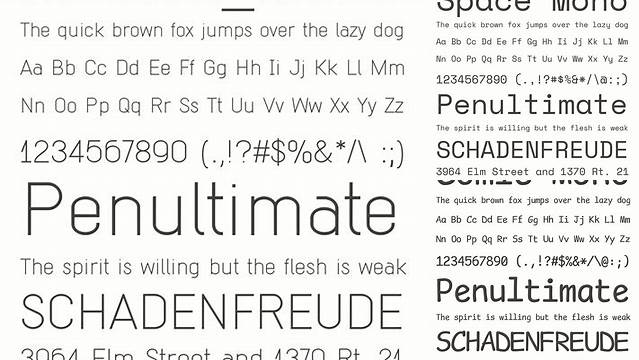
Hey guys! Ever been on the hunt for the perfect mono fonts? You know, those cool, fixed-width fonts that look amazing in code editors, terminals, and even design projects? Well, you've come to the right place! This guide will walk you through everything you need to know about mono fonts, where to find them, and how to download a mono fonts zip file so you can start using them right away. Let's dive in!
What are Mono Fonts?
Before we get into the nitty-gritty of downloading, let's quickly chat about what mono fonts actually are. Unlike proportional fonts, where each character has a different width (think 'i' versus 'w'), mono fonts (also called monospace fonts) give every character the same width. This creates a uniform, typewriter-like appearance that's super easy to read, especially in coding environments where alignment is key. Mono fonts are also fantastic for creating ASCII art, retro designs, and adding a touch of technical flair to your projects. When you're working with code, using a mono font can seriously improve readability and reduce errors. Imagine trying to debug a program with a font where the spaces and letters blend together β a total nightmare, right? That's why developers swear by mono fonts!
Why Choose Mono Fonts?
Choosing the right font can make a world of difference, especially if you spend hours staring at text. Mono fonts offer several key advantages. First off, they boost readability. The consistent character width makes it easier for your eyes to track text, which means less strain and fewer mistakes. This is crucial when you're coding, writing, or just browsing the web. Secondly, mono fonts have a unique aesthetic. They bring a touch of retro coolness and technical sophistication to your projects. Whether you're designing a website, creating a presentation, or writing a document, a well-chosen mono font can make your content stand out. And let's not forget the practical side. In coding, mono fonts ensure proper alignment of code blocks, making it easier to spot errors and understand the structure. This alone makes them a must-have for any developer's toolkit. So, if you're looking for a font that's both functional and stylish, mono fonts are the way to go. Theyβre not just fonts; they're a tool to enhance your workflow and elevate your design game. Seriously, give them a try β you might just fall in love!
Common Uses of Mono Fonts
So, where can you actually use mono fonts? The possibilities are pretty much endless! Obviously, they're a staple in coding environments. Think text editors, IDEs, and terminals β anywhere you need clear, consistent character spacing for code. But mono fonts aren't just for developers. Designers love them for creating a retro or technical vibe in their projects. They're perfect for logos, posters, and websites that need a unique touch. Writers also appreciate mono fonts for drafting documents, especially when dealing with technical content or code snippets. The uniform character width makes it easy to see formatting issues and ensures everything lines up perfectly. Gamers might recognize mono fonts from classic arcade games and retro interfaces, adding a nostalgic feel to their setup. Even in everyday tasks like writing emails or creating presentations, mono fonts can bring a fresh, clean look to your text. Basically, if you need a font that's easy to read, looks cool, and adds a bit of character to your work, mono fonts are an excellent choice. Theyβre versatile, stylish, and incredibly practical β a winning combination in any scenario.
How to Download a Mono Fonts Zip File
Alright, let's get down to the nitty-gritty: how do you actually download a mono fonts zip file? Don't worry, it's super easy! First, head to one of the websites we mentioned earlier, like Google Fonts, Font Squirrel, or DaFont. Once you've found a mono font you love, look for a download button or link. It might say something like "Download TTF," "Download OTF," or "Download Zip." Click that button, and your browser will start downloading the mono fonts zip file. The zip file is basically a compressed folder containing the font files (usually in TTF or OTF format). Once the download is complete, you'll need to unzip the file. On Windows, you can usually just right-click the file and select "Extract All." On macOS, double-clicking the zip file will usually unzip it automatically. Inside the unzipped folder, you'll find the font files. Now you're ready to install them on your computer! We'll cover that in the next section. But for now, just remember: find the download button, click it, unzip the file, and you're golden. Itβs a piece of cake!
Step-by-Step Guide to Downloading
Okay, let's break down the process of downloading a mono fonts zip file into a super simple, step-by-step guide. First things first, you need to find a website that offers mono fonts for download. We've already talked about some great options like Google Fonts, Font Squirrel, and DaFont, so pick your favorite and head on over there. Once you're on the site, browse through the mono font selection until you find one that catches your eye. Click on the font to view its details and make sure it's the right fit for your project. Now comes the fun part: downloading! Look for a download button or link. It might be labeled something like "Download," "Download TTF," "Download OTF," or "Download Zip." Click that button, and your browser should start downloading the mono fonts zip file automatically. The file will likely be saved to your Downloads folder, but you can usually choose a different location if you prefer. Once the download is complete, you'll have a zip file on your computer. The next step is to unzip it, which we'll cover in the next section. But for now, just remember these steps: find a font, click the download button, and wait for the zip file to arrive. You're one step closer to having awesome new mono fonts!
Troubleshooting Download Issues
Sometimes, even with the best instructions, things can go a little sideways. So, let's troubleshoot some common issues you might encounter when trying to download a mono fonts zip file. First off, if the download doesn't start when you click the button, make sure your internet connection is stable. A weak or interrupted connection can prevent downloads from starting. If your connection seems fine, try clearing your browser's cache and cookies. Sometimes, old data can interfere with downloads. Another common issue is blocked downloads. Your browser or antivirus software might flag the zip file as potentially unsafe, especially if you're downloading from a less-known website. In this case, make sure you're downloading from a reputable source like Google Fonts or Font Squirrel. If you're still having trouble, you might need to temporarily disable your antivirus software to complete the download. Just remember to re-enable it afterward! If the zip file downloads but you can't open it, it might be corrupted. Try downloading the file again. If that doesn't work, the problem might be with the website itself. Try downloading a different mono font from the same site or switching to a different website altogether. Finally, if all else fails, try using a different browser to download the file. Sometimes, browser-specific issues can cause download problems. By following these troubleshooting steps, you should be able to overcome most download challenges and get your hands on those sweet mono fonts!
Workshops and Conferences
If you're the kind of person who loves learning in a collaborative and interactive environment, typography workshops and conferences are the perfect way to expand your knowledge and connect with fellow enthusiasts. These events offer a unique opportunity to learn from industry experts, participate in hands-on activities, and network with other designers, typographers, and creatives. Typography workshops typically focus on a specific aspect of typography, such as font design, web typography, or font pairing. They often involve hands-on exercises and projects, allowing you to apply what you've learned in a practical setting. Typography conferences, on the other hand, are larger events that bring together a diverse group of speakers, attendees, and exhibitors. They offer a wide range of sessions, workshops, and networking opportunities, covering everything from the latest trends in typography to the history of type design. Attending a typography workshop or conference can be a valuable investment in your professional development. You'll gain new skills, insights, and connections that can help you advance your career and passion for typography. Some popular typography workshops and conferences include TypeCon, ATypI, and the TDC Typeface Design Competition. These events attract top typographers and designers from around the world and offer a rich and rewarding learning experience. So, if you're looking to take your typography skills to the next level, consider attending a workshop or conference β you won't be disappointed! Guys, that's a wrap on our ultimate guide to mono fonts! I hope you found this article helpful and informative. Now you're armed with all the knowledge you need to download, install, and use mono fonts in your projects. Happy fonting! π»β¨